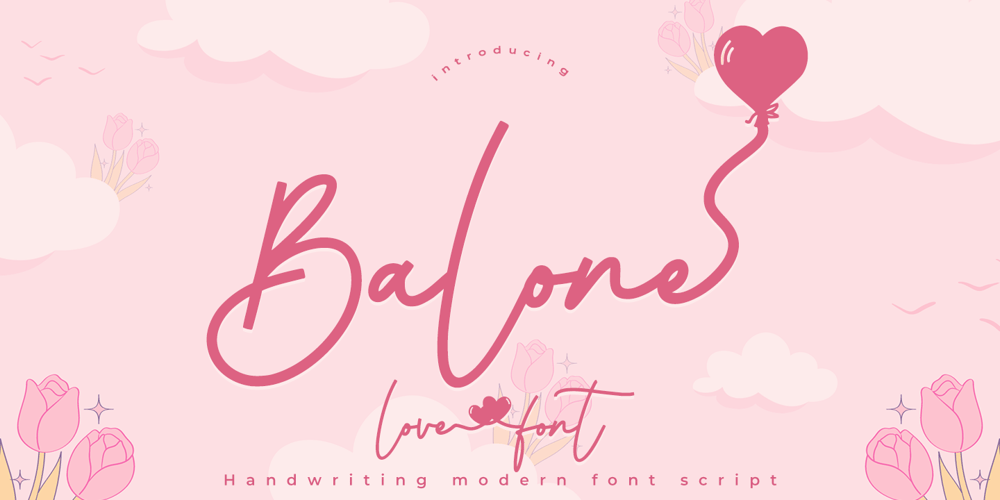
Balone
Balone font
Balone Font Family was designed by Muhammad Zaini and published by Cocodesign. Balone contains 1 styles and family package options. Balone Script is a modern calligraphy design, including Regular. This font is casual and beautiful with swash. Can be used for various purposes. such as logos, product packaging, wedding invitations, branding, headlines, signage, labels, signatures, book covers, posters, quotes, and more.